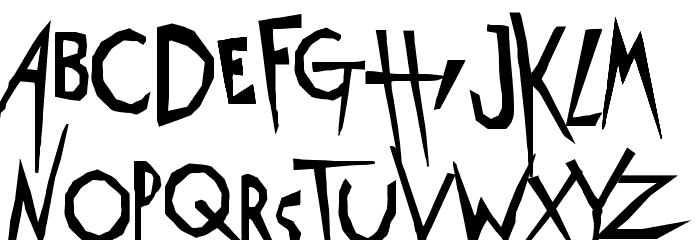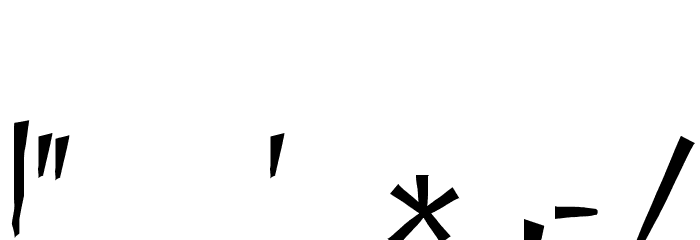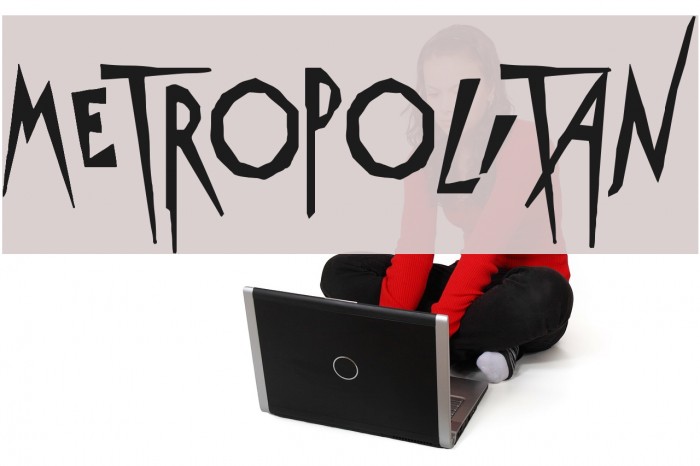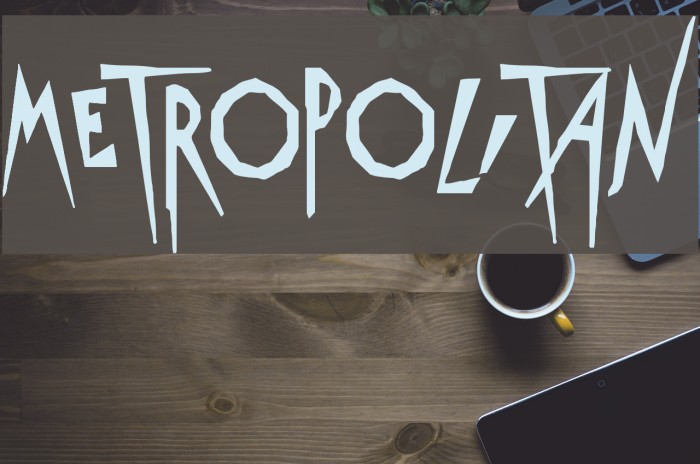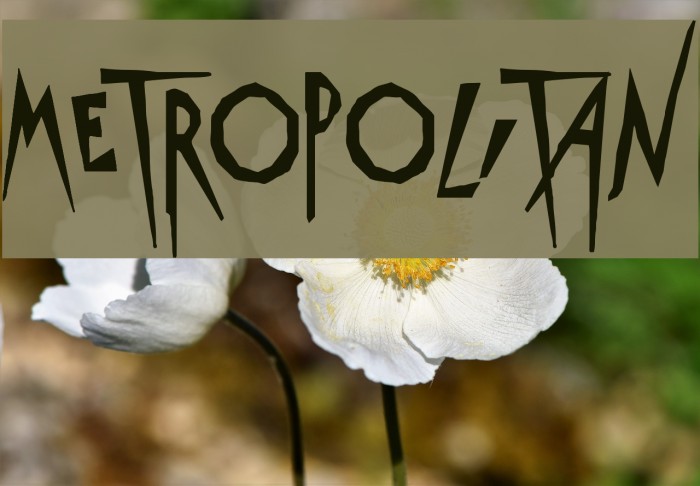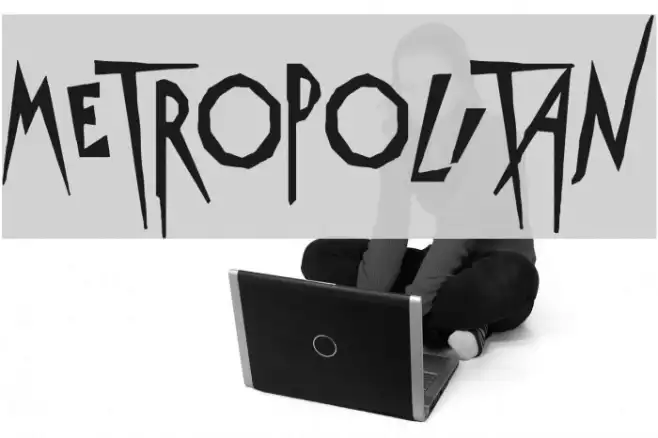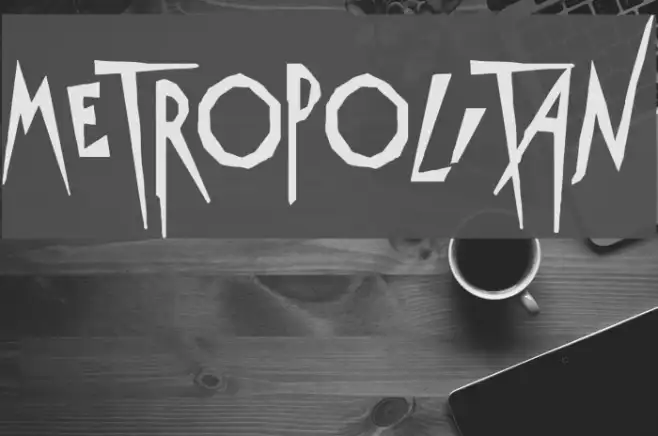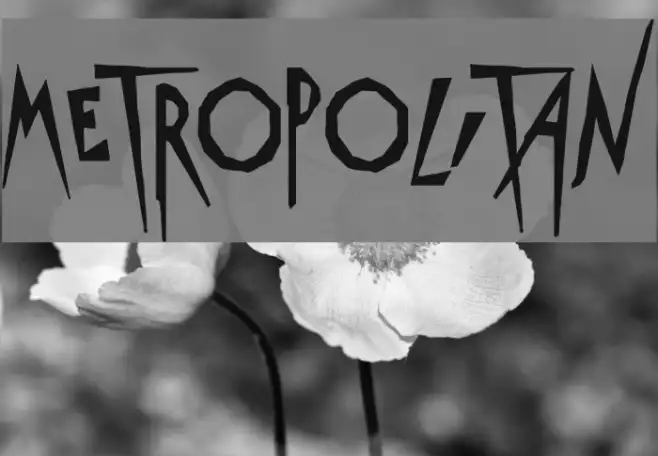
Metropolitan Font
This font features a highly stylized and edgy design, characterized by sharp, angular lines and a dynamic, energetic appearance. The uppercase letters are bold and jagged, with exaggerated points and varying stroke widths that give a sense of movement and intensity. The lowercase letters maintain the same angular style, creating a cohesive look across the alphabet. Numbers and special characters follow the same design principles, ensuring consistency throughout. This font is ideal for projects that require a bold, attention-grabbing aesthetic, such as posters, album covers, or branding for edgy or alternative products.
A bold, angular font with sharp, dynamic lines and a striking appearance.
- Proposed Projects: Ideal for posters, album covers, edgy branding, and alternative product designs.
- Overall Style: Modern, Edgy